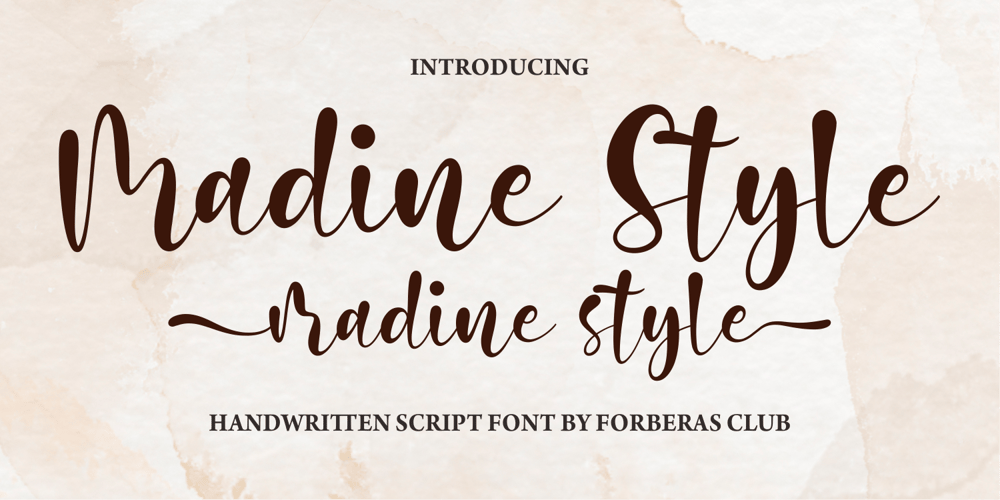
Madine Style
Madine Style font
Madine Style Font Family was designed by ANGGI HERMAWAN and published by Forberas Club. Madine Style contains 1 styles and family package options. Introducing Madine Style. This font is our new born project, and ready to help pop up your project as a wedding invitation font, or party event, still playful but gorgeous.